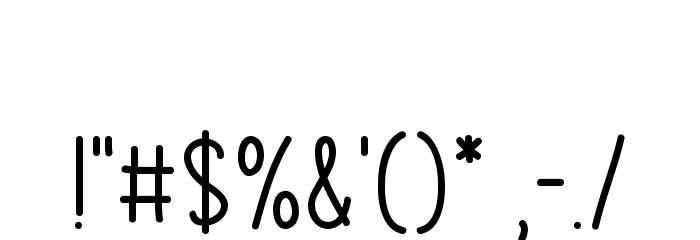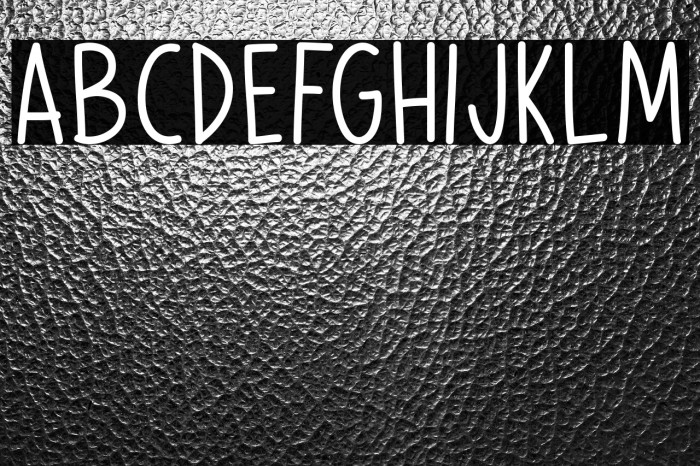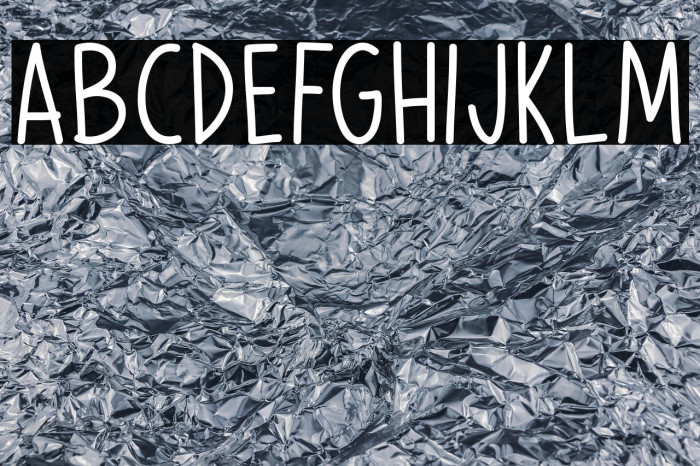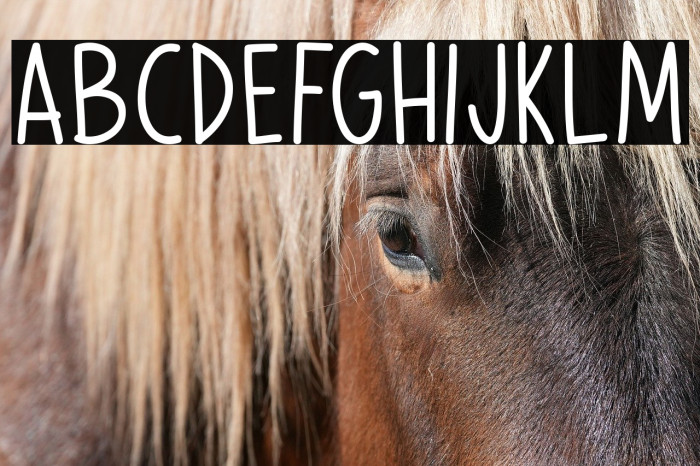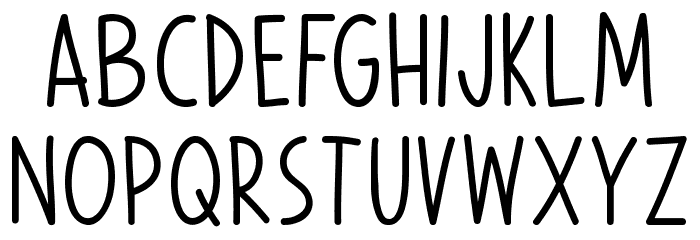
Wake Up Now Font
Wake Up Now Description
This font features a playful and informal style, characterized by its handwritten appearance. The letters are tall and slightly irregular, giving a casual and friendly vibe. The strokes are consistent in width, with a slight variation that adds to the hand-drawn feel. The uppercase and lowercase letters maintain a uniform height, contributing to a cohesive look. The font includes a full set of uppercase and lowercase letters, numbers, and a variety of special characters, making it versatile for different uses. Its legibility and unique style make it suitable for creative projects that require a personal touch.